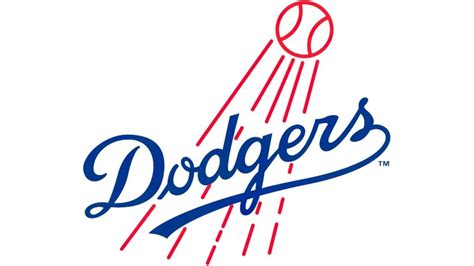
LA Dodgers Font Generator: Create Free Dodgers-Style Text
What's up, font fanatics and baseball buffs! Ever scrolled through social media or seen some cool fan-made gear and thought, "Man, I wish I could rock that awesome LA Dodgers font on my own stuff?" Well, guys, you're in luck! Today, we're diving deep into the world of the LA Dodgers font generator free options out there, so you can easily whip up text that looks like it came straight from Chavez Ravine. We're talking about that iconic, sporty, and instantly recognizable lettering that screams Los Angeles Dodgers. Whether you're a die-hard fan wanting to create custom jerseys, banners for your fantasy league, or just some cool graphics for your blog, knowing how to get that authentic look is key. Forget spending a fortune on design software or hiring a pro. We're going to show you how to tap into the power of free online tools that let you play around with the Dodgers font and generate killer text in no time. Get ready to unleash your inner designer and show your Dodger pride like never before!
Understanding the Iconic LA Dodgers Font
Alright guys, before we start generating, let's chat about what makes the LA Dodgers font so special. It's not just any old typeface, you know? This font has a history and a vibe all its own. If you're thinking about the Dodgers font , you're probably picturing that classic, bold, slightly slanted lettering that you see on their jerseys, caps, and all their official branding. It's got a real sporty feel, a bit of an athletic swagger, and it’s incredibly legible, which is super important when you're dealing with team names and player numbers. The official font used by the Los Angeles Dodgers is often referred to as the "Dodgers" font or a variation of it, drawing inspiration from classic athletic block lettering. It's characterized by its clean lines, strong serifs (or lack thereof, depending on the specific iteration), and a dynamic tilt that gives it a sense of forward momentum, much like a player sprinting around the bases. This isn't just about aesthetics; it's about brand identity. For decades, this font has been the visual shorthand for one of baseball's most storied franchises. It evokes a sense of tradition, winning, and that unique Los Angeles spirit. When you see that font, you immediately think of Kirk Gibson's legendary home run, Vin Scully's unforgettable calls, and the roar of the crowd at Dodger Stadium. It's a font that carries weight and meaning. Understanding these nuances is what makes using a LA Dodgers font generator free tool so effective. You want to capture that essence, that feeling, that visual cue that instantly connects your design to the team. While the exact commercial font might have specific licensing, there are many free alternatives and generators designed to mimic its distinct look, allowing fans to replicate that beloved aesthetic without breaking the bank. So, when you're looking for a free LA Dodgers font generator , keep this iconic look in mind – the bold strokes, the slight italic lean, and the overall confident, athletic feel.
Why Use a LA Dodgers Font Generator?
So, why bother with a LA Dodgers font generator in the first place, especially when you can find free ones? Well, guys, it boils down to convenience, creativity, and cost-effectiveness. Let's be real, not everyone is a graphic design guru with access to expensive software like Adobe Illustrator or Photoshop. Trying to manually recreate that specific Dodgers font from scratch can be a nightmare, even for seasoned pros. You might spend hours fiddling with letter shapes, spacing, and angles, only to end up with something that looks a bit… off. A good LA Dodgers font generator free tool takes all the guesswork out of it. These generators are specifically designed to replicate the characteristics of the official Dodgers lettering. You type in your text, select the font style (or it might be pre-selected to mimic the Dodgers look), maybe tweak some colors, and boom! You've got text that looks authentic in seconds. This is a massive time-saver, especially if you need to create something quickly for a party, a fan event, or even just a social media post. Plus, it opens up a world of creative possibilities for fans. Imagine designing personalized birthday invitations with "Happy Birthday, [Your Name]!" in Dodger blue and red, or creating witty fan memes using that classic script. You could make custom t-shirts for your fantasy baseball league that proudly bear your team's name in that unmistakable style. For small businesses or fan groups, using a free LA Dodgers font generator is also incredibly budget-friendly. Instead of paying for font licenses or design services, you can achieve a professional-looking result using readily available online tools. It empowers you to express your fandom in a unique and visually appealing way without needing advanced technical skills or a hefty budget. It’s all about making it easy for *you*, the fans, to represent your team with pride and style. So, if you want that genuine Dodgers vibe on your projects without the hassle, a font generator is your best friend!
How to Find and Use Free LA Dodgers Font Generators
Okay, let's get down to business, guys! Finding and using a LA Dodgers font generator free online is pretty straightforward once you know where to look. The internet is a vast place, and thankfully, many creative folks and websites have developed tools specifically for fans like us. Your first step is usually a simple Google search. Try terms like "LA Dodgers font generator free" , "free Dodgers text generator" , or "Dodgers style font creator" . You'll likely stumble upon several websites that offer this service. Look for sites that clearly state they offer a Dodgers-style font or have examples that match the iconic look. Some popular options might include dedicated font generator websites, online design tools with font libraries, or even fan forums where people share custom creations and resources. Once you find a promising site, the usage is typically super intuitive. Most generators will have a text input box where you type the words you want to transform – maybe your name, your team's name, or a catchy phrase. Below or beside the input box, you'll usually see options to select the font. If it's a dedicated LA Dodgers font generator , the font might be pre-selected for you. If it's a broader generator, you'll need to browse their library to find a font that closely resembles the official Dodgers style. Look for bold, italicized, athletic block fonts. Some generators also allow you to customize colors – think classic Dodger blue and white, or red accents! You might also find options for sizing, outlines, or shadows to add extra flair. Once you're happy with the preview, there's usually a button to download or generate your text as an image file (like PNG or JPG). This image can then be easily saved to your computer or phone and used in your projects. Remember to check the terms of use for any generator you use, especially if you plan to use the generated text for commercial purposes, though most free generators are intended for personal, fan-made projects. So, dive in, explore, and have fun creating!
Tips for Creating Awesome Dodger-Inspired Designs
Alright, you've got your LA Dodgers font generator free tool fired up and you're ready to create some magic. But how do you make sure your designs truly capture that Dodger spirit? Let's talk strategy, guys! First off, color is king . The iconic Dodger blue is non-negotiable for that authentic feel. Pair it with crisp white, and maybe a touch of red for accents, just like the team's official colors. Think about where you're placing your text. If you're designing a t-shirt, imagine how the generated text will look centered on the chest, perhaps with a baseball graphic or the iconic interlocking "LA" logo. For banners or social media posts, keep readability in mind. The bold, slanted nature of the Dodgers font is great, but make sure it stands out against your background. Contrast is your best friend here. Don't be afraid to experiment with different backgrounds or textures that evoke a sense of the ballpark – maybe a subtle stadium light texture or a baseball stitch pattern. Another pro tip: less is often more . While it's tempting to go wild with effects, sometimes the clean, bold look of the font itself is powerful enough. Consider using the generated text as a focal point and building your design around it, rather than overcrowding it with too many elements. Think about the context. Are you making something for a birthday? Maybe add balloons or a cake graphic. Is it for a fantasy league championship? Perhaps incorporate a trophy or laurel wreath element. The key is to blend the generated LA Dodgers font seamlessly with other elements to create a cohesive and impactful design. Also, pay attention to the details. If your generator allows for outlines or shadows, use them sparingly and purposefully to enhance the text's visibility and impact. A subtle white outline on Dodger blue text against a dark background can really make it pop. Finally, get inspired by official Dodgers merchandise and fan creations, but always add your own personal touch. Your goal is to create something unique that shows off your Dodgers pride in a way that feels authentic to you. So, get creative, have fun, and let that Dodger spirit shine through!
Common Pitfalls to Avoid
Even with the best LA Dodgers font generator free tools at your fingertips, there are a few common traps that can trip you up, guys. Let's make sure you avoid them so your creations look sharp! First big one: font similarity vs. exact replication . While generators are awesome, they often provide fonts that *look like* the official Dodgers font, rather than being the exact licensed version. This is usually fine for personal use, but be mindful if you're trying to pass it off as official. The official Dodgers font has specific kerning, spacing, and slight design nuances that free generators might not perfectly capture. Don't expect pixel-perfect accuracy if you're aiming for official licensing standards; aim for that recognizable *vibe*. Second pitfall: ignoring licensing and usage rights . Most free generators are intended for personal, non-commercial use. If you plan to sell t-shirts, posters, or anything else featuring the generated text, you could be stepping into copyright territory. Always check the terms of service of the generator you're using. If you need a font for commercial use, you might need to look into purchasing official font licenses or using fonts that are explicitly licensed for commercial use. Third, poor image quality . When you download your generated text, make sure you're saving it in a high enough resolution for your intended use. Downloading a small, pixelated image and trying to enlarge it will result in a blurry mess. Always aim for the largest possible size or a vector format (if offered) for the best quality. Fourth, overdoing it with effects . As mentioned before, the Dodgers font is bold and iconic on its own. Adding too many distracting effects, gradients, or textures can cheapen the look and make it hard to read. Stick to the classic color palette and clean presentation. Finally, inconsistent branding . If you're creating multiple items, try to maintain a consistent look and feel. Use the same color variations, the same text effects (or lack thereof), and the same general layout to create a cohesive set of designs. By being aware of these potential issues, you can navigate the world of free font generators more effectively and create designs that truly do your Dodger fandom justice. Stay sharp, stay informed!
Beyond Text: Incorporating Dodger Elements
While a LA Dodgers font generator free tool is fantastic for getting that signature lettering, guys, true Dodger-inspired design goes beyond just text. Let's talk about how you can elevate your creations by incorporating other iconic elements associated with the team. Think about the Dodgers' iconic logos . The interlocking "LA" is perhaps the most famous, instantly recognizable symbol of the franchise. Many graphic design tools, or even specific fan sites, might offer downloadable versions of these logos (again, be mindful of usage rights for personal projects). Pairing your generated text with the "LA" logo can create a powerful and complete design. Consider the team's colors, which we've touched on, but also think about the context. Dodger blue, white, and red are the core, but you might also incorporate imagery related to Los Angeles itself – perhaps subtle nods to palm trees, city skylines, or even historical Dodger Stadium elements. Another approach is to use baseball-themed graphics . Think baseball stitches, baseball bats, home plate shapes, or even subtle textures that mimic a baseball glove or the feel of the diamond. These elements can act as borders, backgrounds, or complementary graphics that reinforce the baseball theme without overpowering your main text. If you're feeling ambitious, you could even look for silhouette images of famous Dodger players or iconic stadium shots that you can use as background elements. The key is to create a layered design where the generated LA Dodgers font is a central piece, supported by other relevant visuals. For example, you could have your generated text "Dodger Fan" on a t-shirt, with a subtle baseball stitch pattern as the background, and a small, classic "LA" logo near the hem. Or, for a party invitation, your generated "Play Ball!" text could be surrounded by stylized baseballs and maybe a silhouette of a palm tree. The goal is to create a visual narrative that tells a story of fandom and celebrates the team's legacy. By thoughtfully combining the power of a free LA Dodgers font generator with these other visual cues, you can craft designs that are not only textually accurate but also visually rich and deeply resonant with the spirit of the Los Angeles Dodgers. Go big, or go home – just like a walk-off homer!
Conclusion: Your Dodgers Designs Await!
So there you have it, guys! We've explored the ins and outs of using a LA Dodgers font generator free to get that unmistakable, sporty lettering for all your fan projects. We've talked about why these generators are lifesavers for creativity and budget, how to find and use them effectively, and crucially, how to avoid common pitfalls to ensure your designs look top-notch. Remember, the goal is to capture the spirit, the bold energy, and the iconic look of the Los Angeles Dodgers. Whether you're decking out yourself, your gear, or just sharing your fandom online, having access to these free tools makes it easier than ever to represent your team with pride. Don't forget to play with colors, incorporate other Dodger elements, and always keep that authentic feel in mind. The power is in your hands – or rather, at your fingertips! So go ahead, fire up that browser, find a generator that works for you, and start creating. Your awesome, custom Dodger-inspired designs are just a few clicks away. Now get out there and show the world you're a true fan! Go Dodgers!